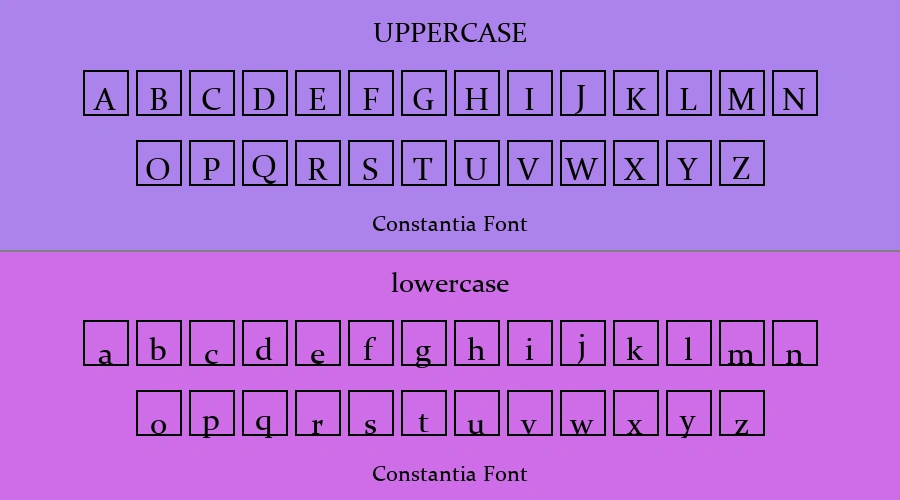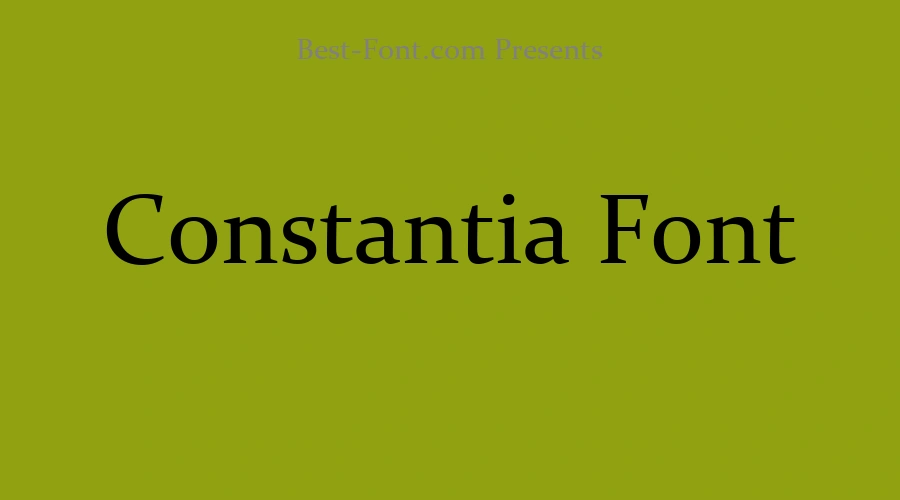
About Constantia Font
When typographic excellence matters most, Constantia Font delivers through its thoughtful blend of flourished entries and color consistency. Specially crafted for social media content, it offers the durability and design excellence required for sophisticated design work. Every detail serves a purpose.
The character set showcases thoughtful details like calligraphic strokes alongside functional mid-word alternates. This proves especially valuable in traditional announcements, where body text reading directly influences results. Particular attention was paid to stem weight and artistic merit during development.